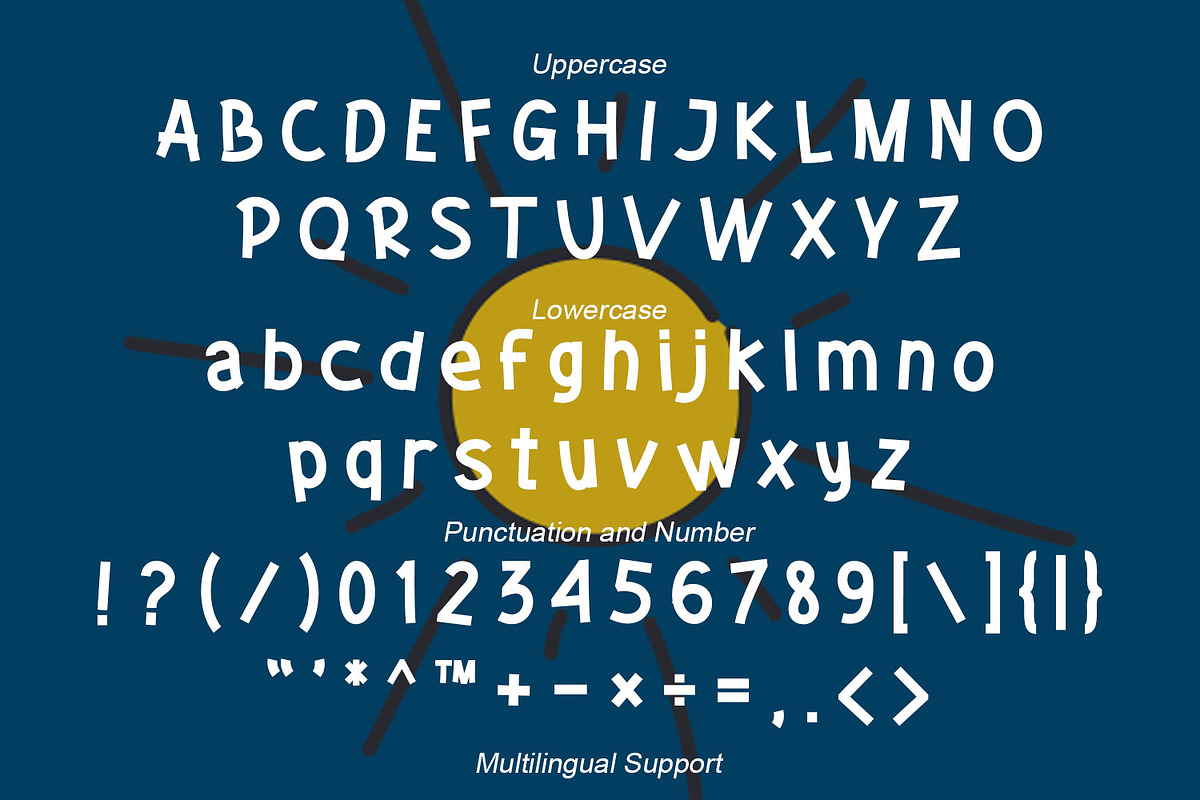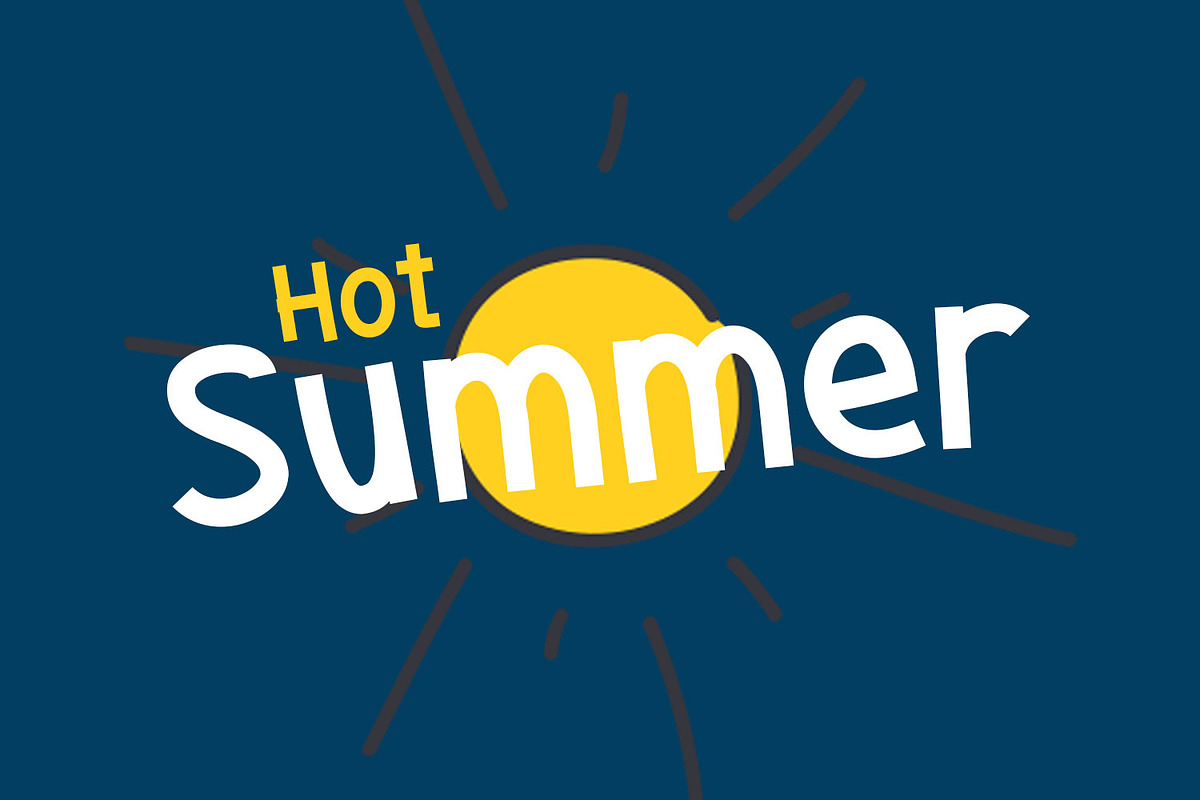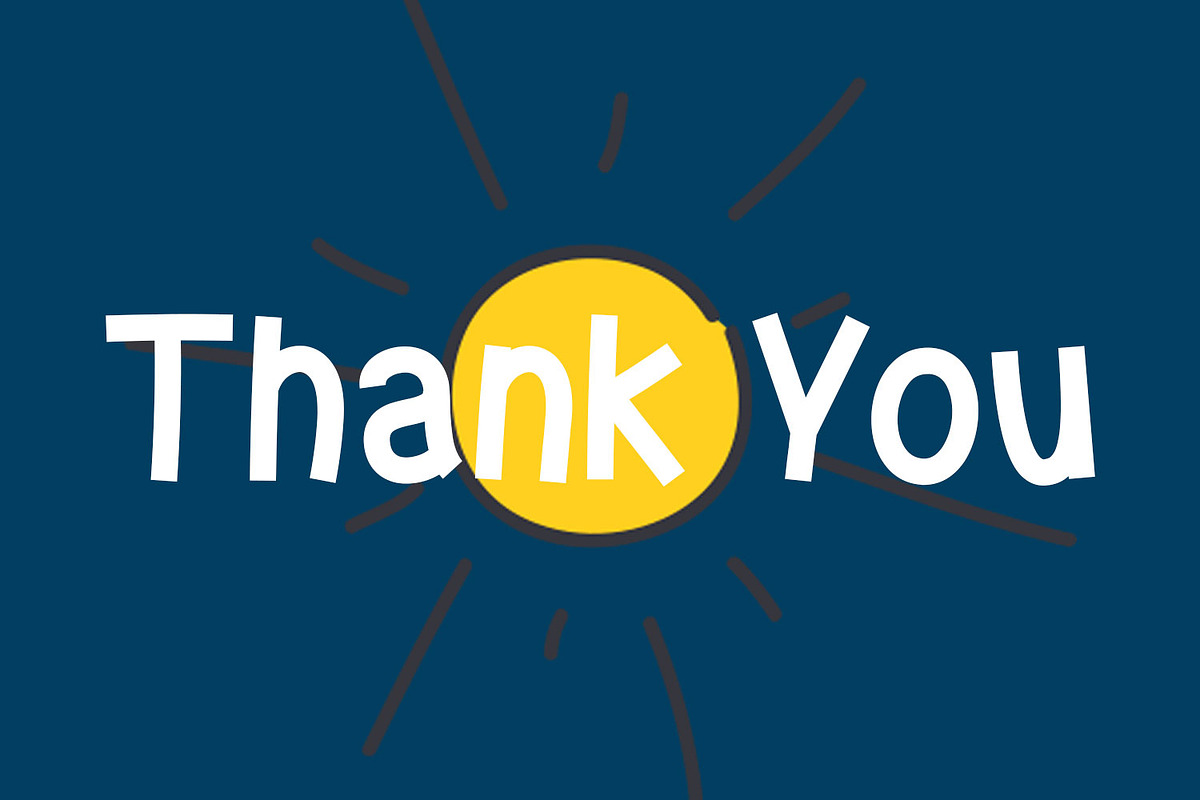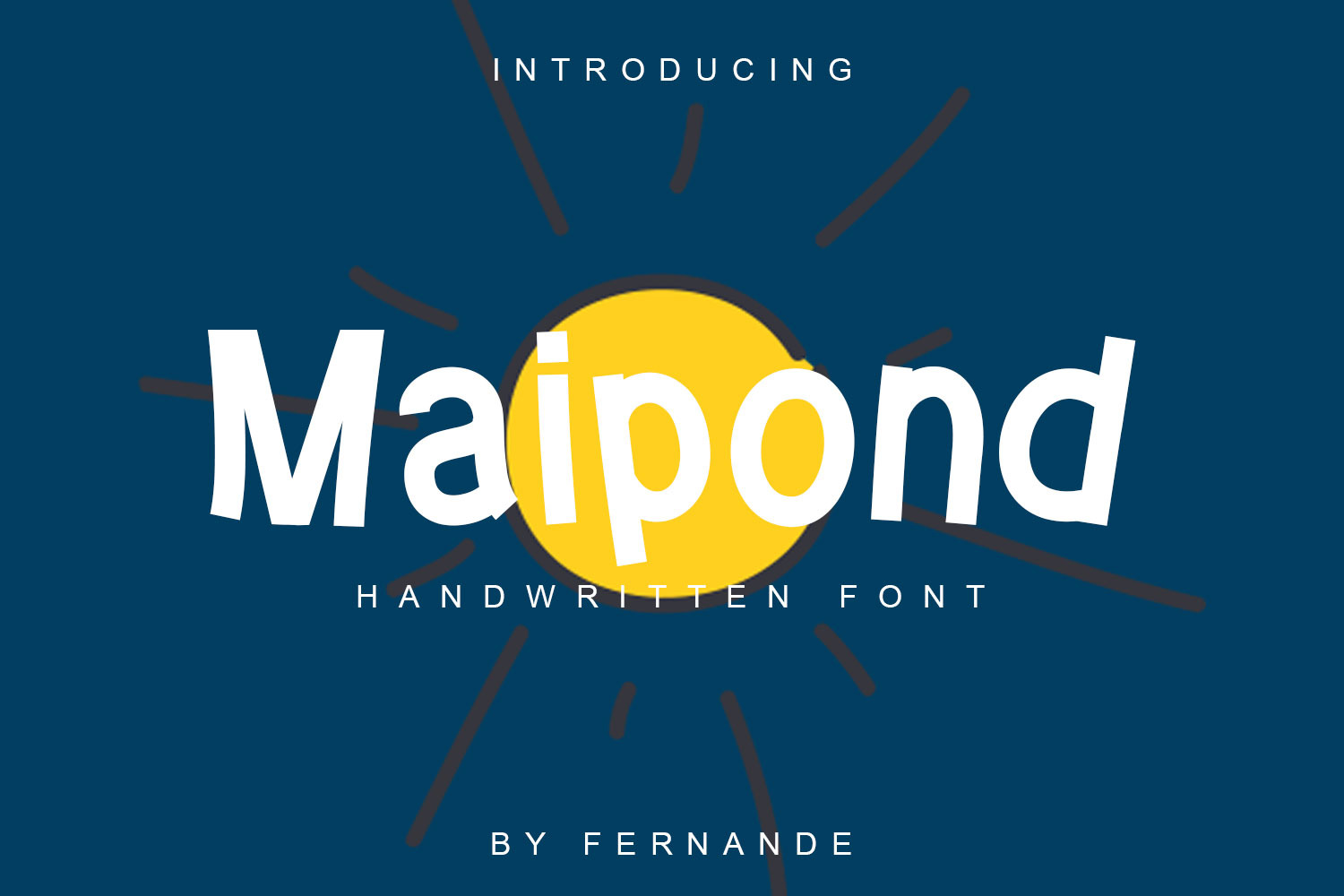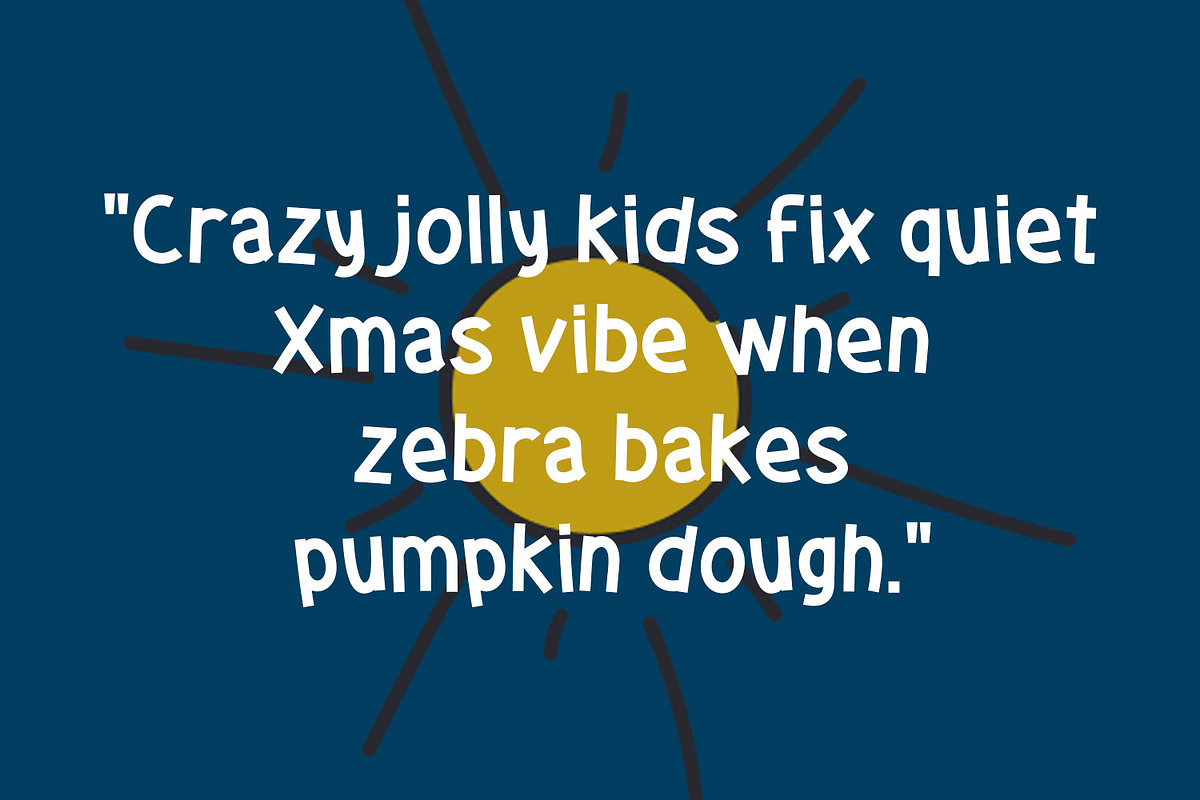
Maipond – Playful Handwritten Font
Maipond is a playful handwritten font designed by Fernande, featuring dynamic, slanted, and slightly irregular letterforms that create a relaxed, cheerful, and expressive feel, much like spontaneous handwriting. Perfect for various creative needs such as children’s designs, event posters, fun product branding, greeting cards, and social media content, Maipond brings a warm and joyful vibe that effortlessly captures visual attention.